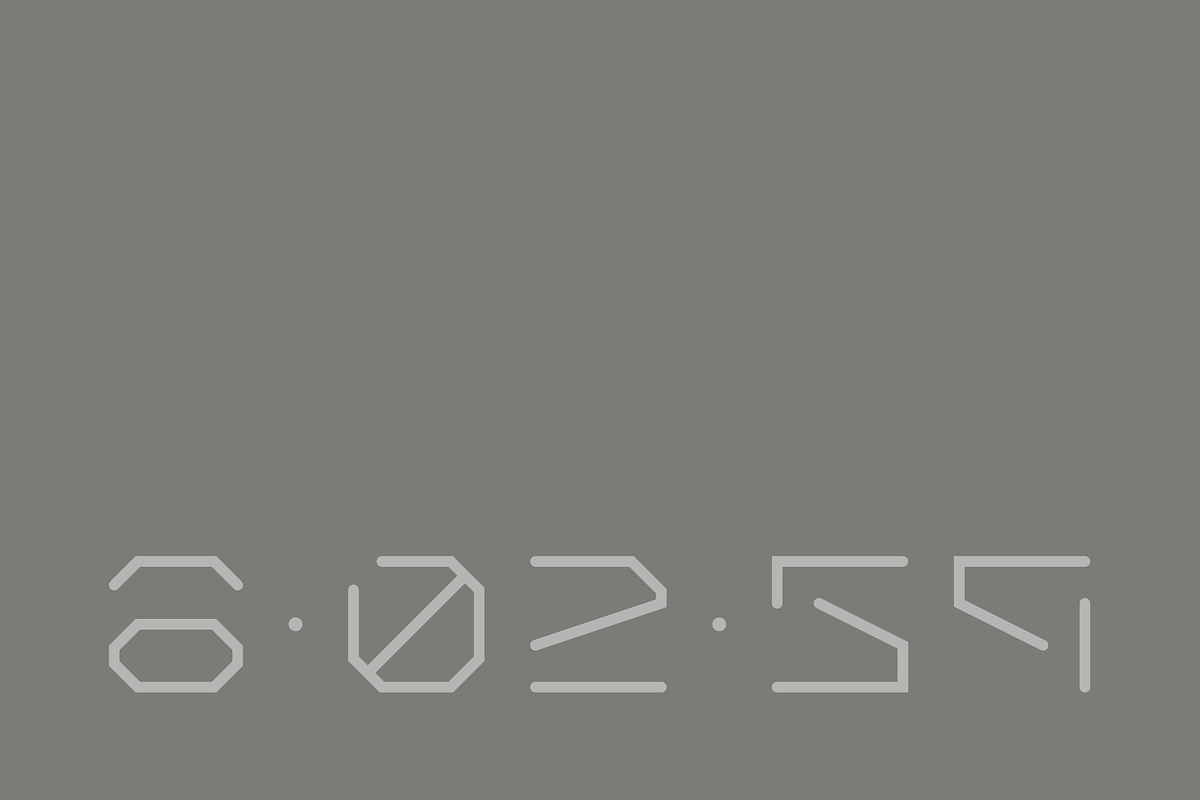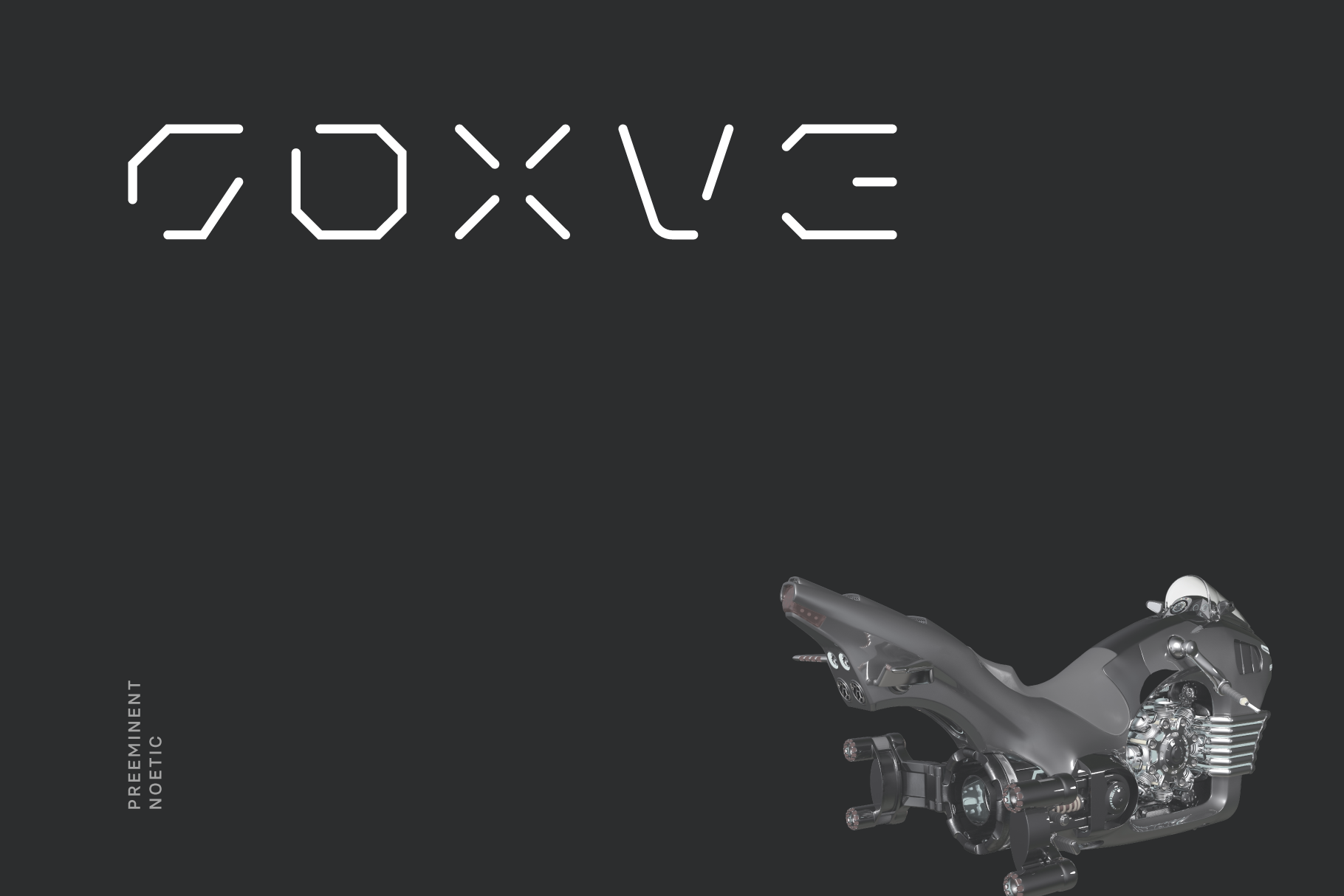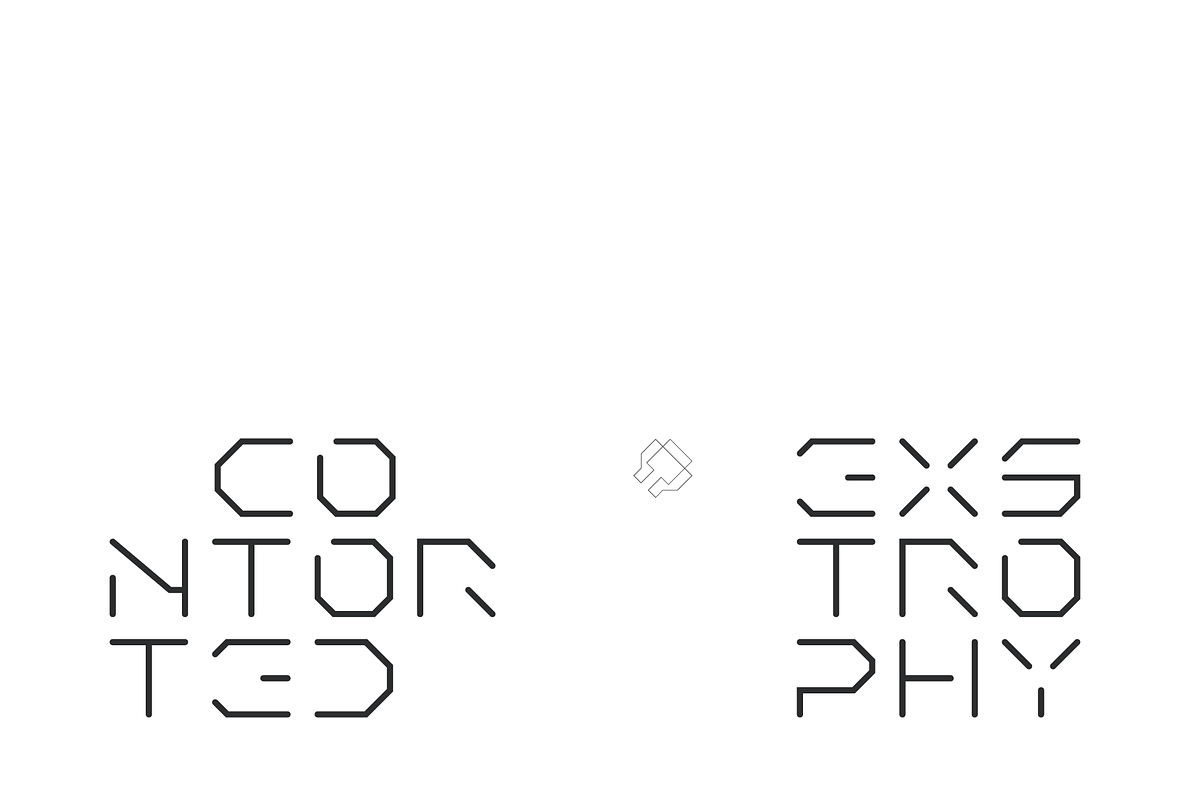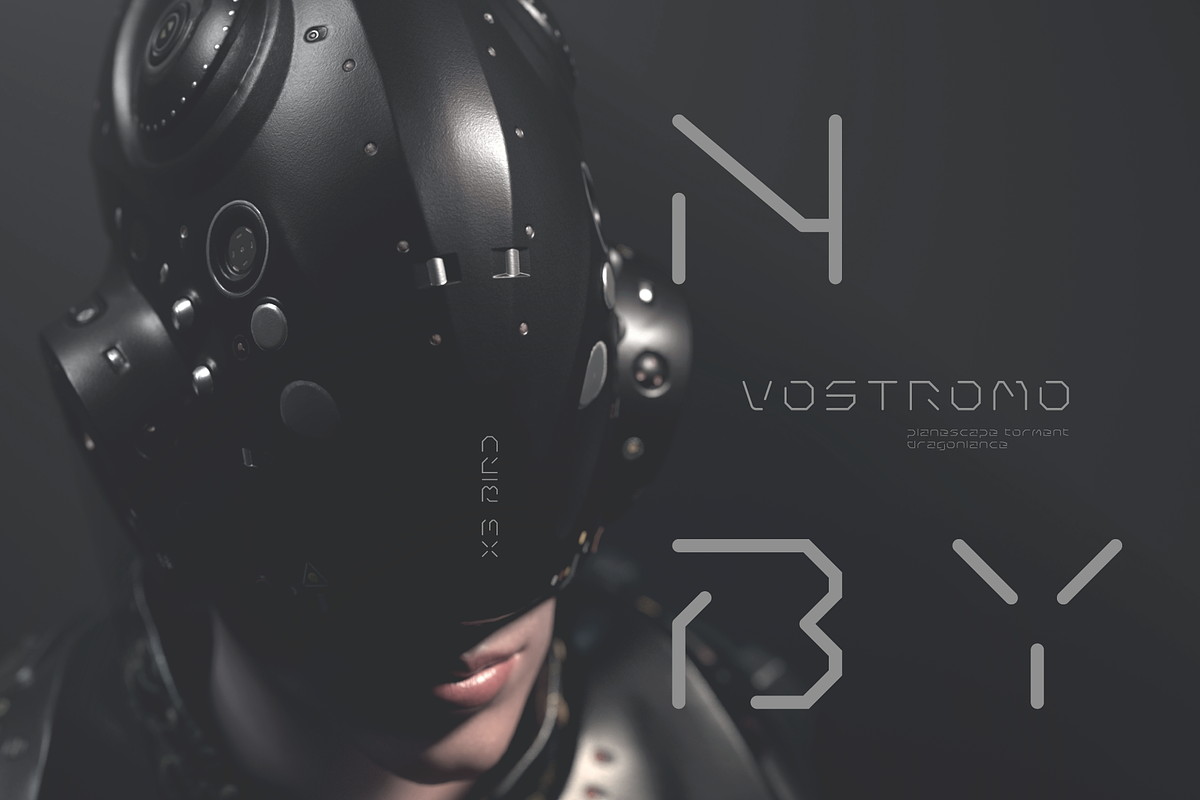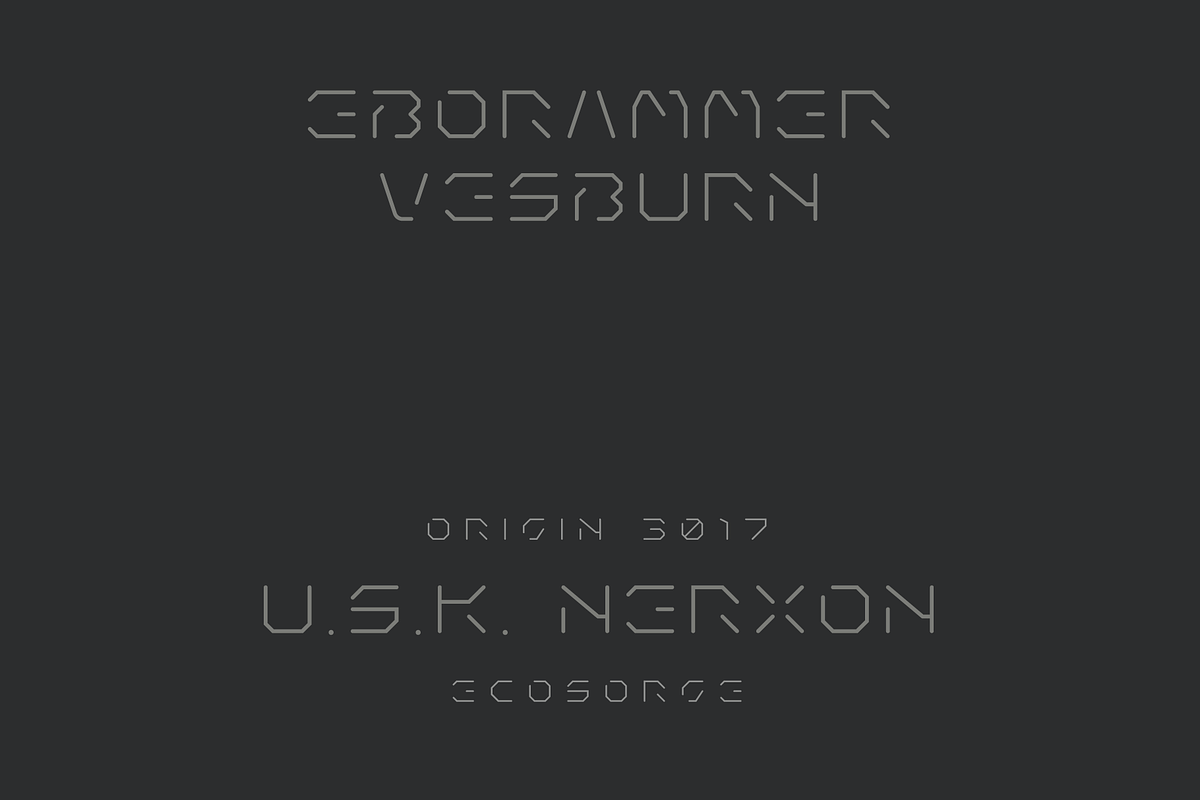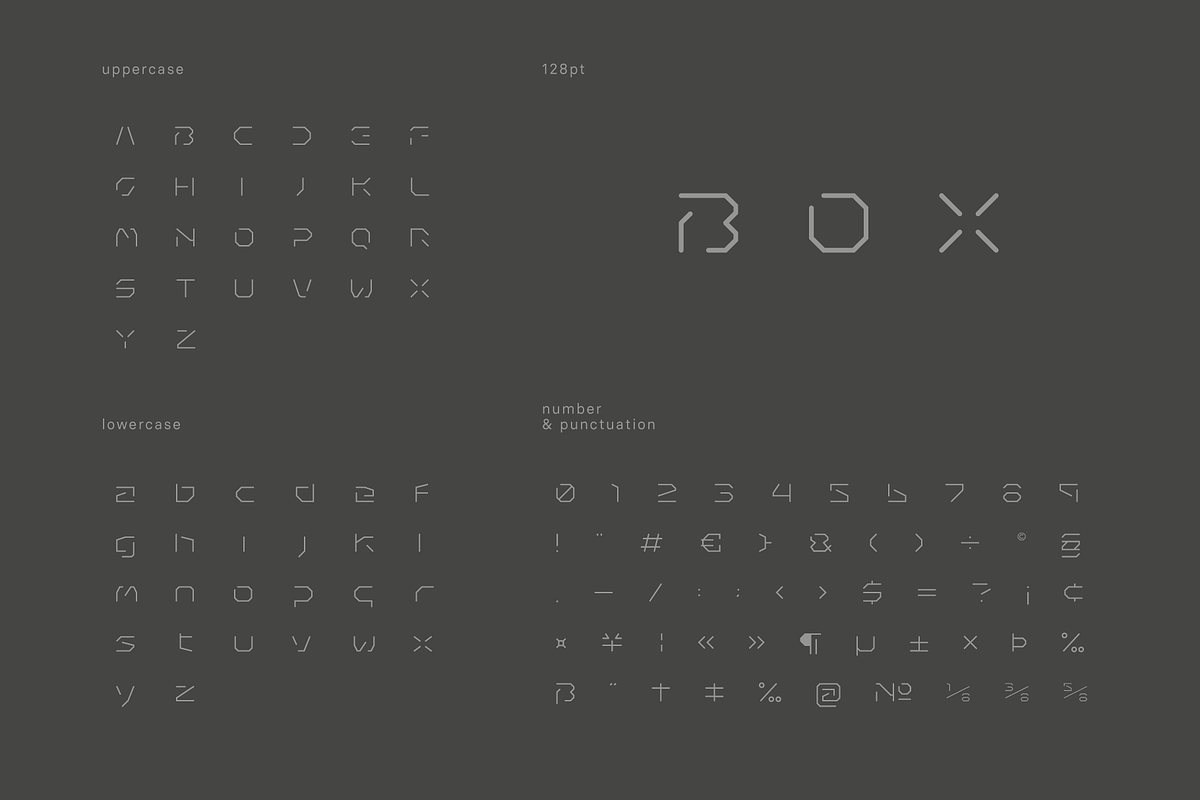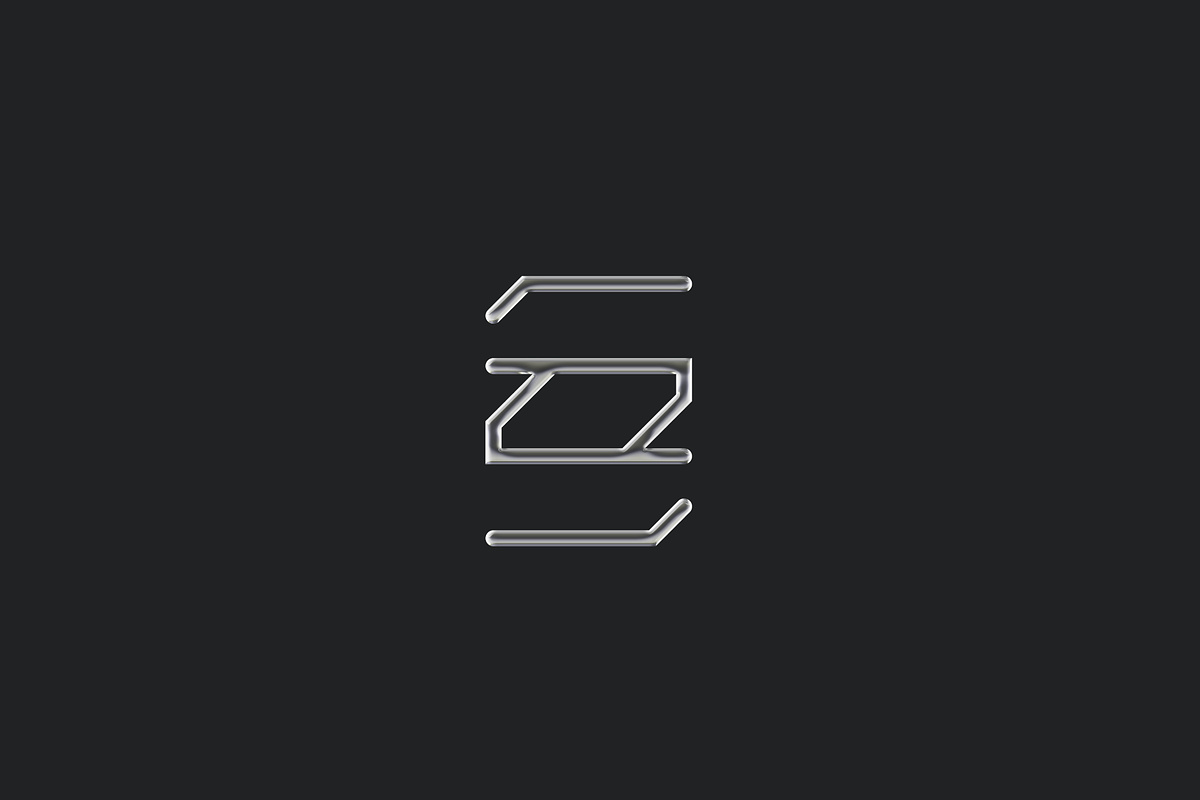
Goxve Futuristic Tech Font
Goxve is a preeminent noetic tech display typeface apt for headline, editorial, branding, packaging, printed materials and typographic applications. 150+ glyphs with ligatures and fractions provided in opentype .otf and .woff format.